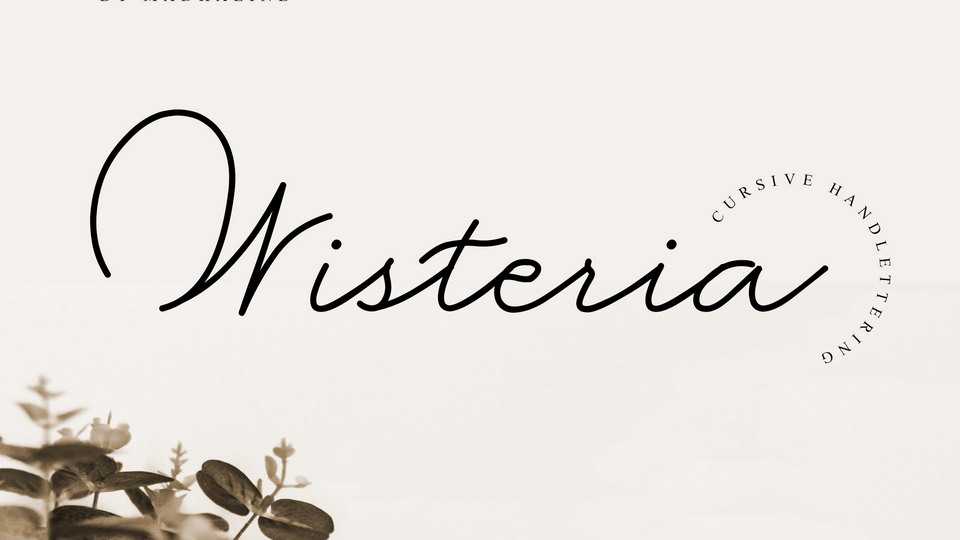
Download Wisteria font, an organic handwritten script with an elegant flow. Wisteria font would perfect for photography watermark, social media posts, advertisements, logos and branding or anything that need handwriting taste.
Designer: MadhalineStudio